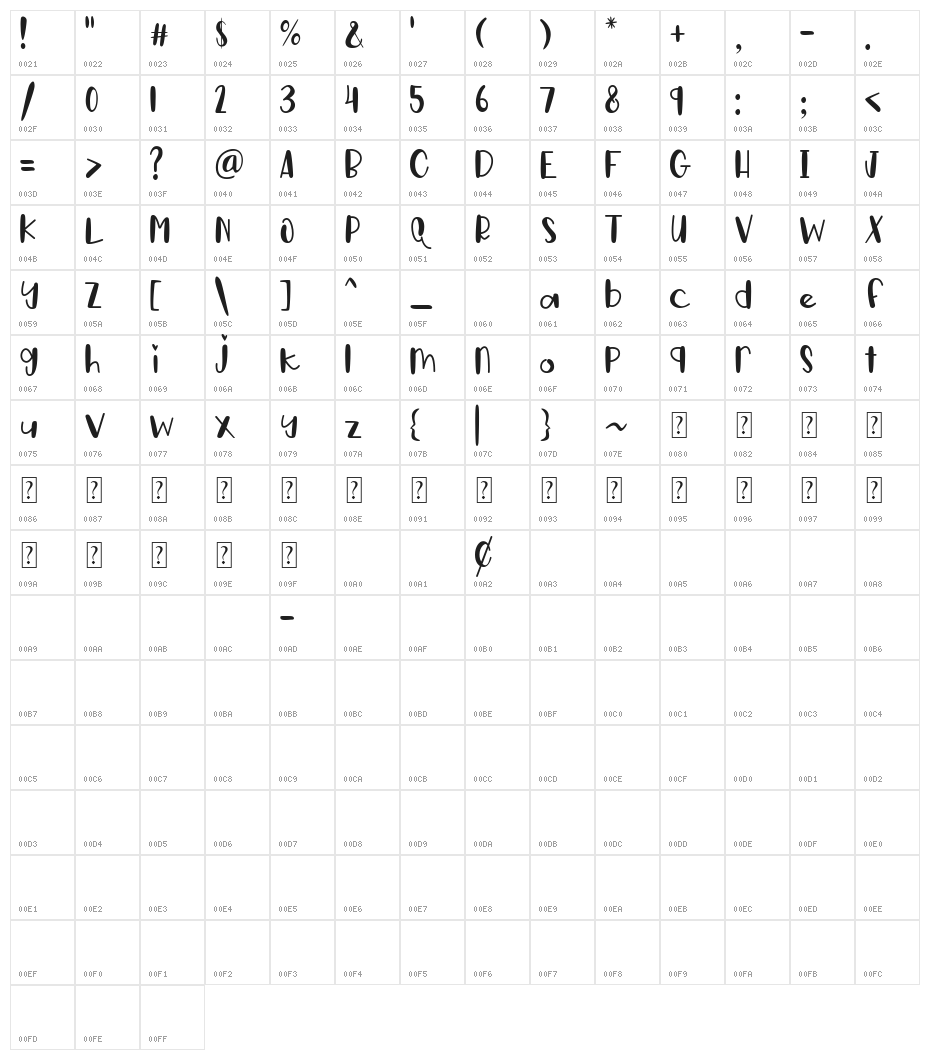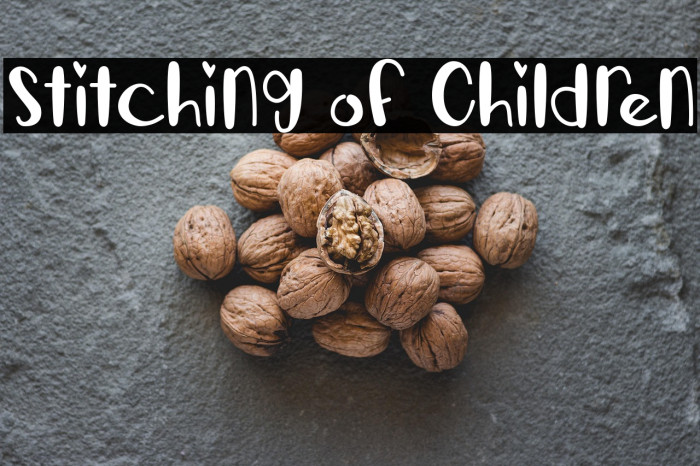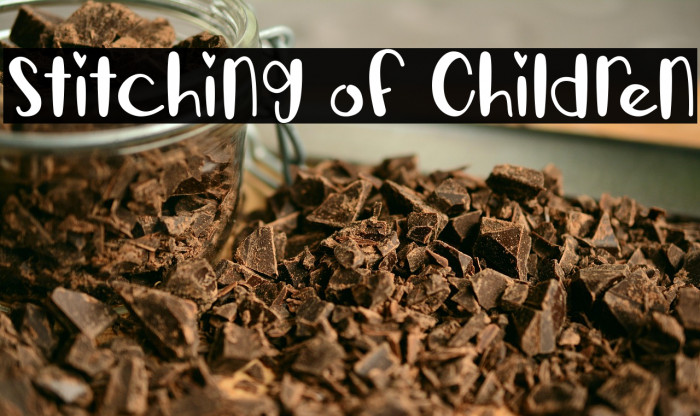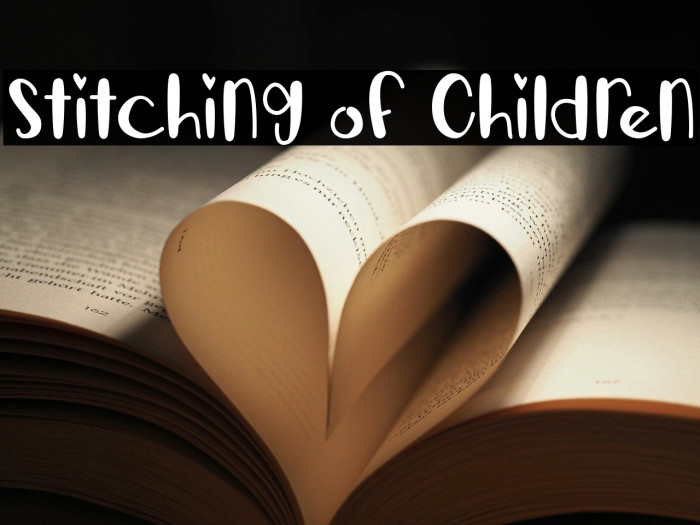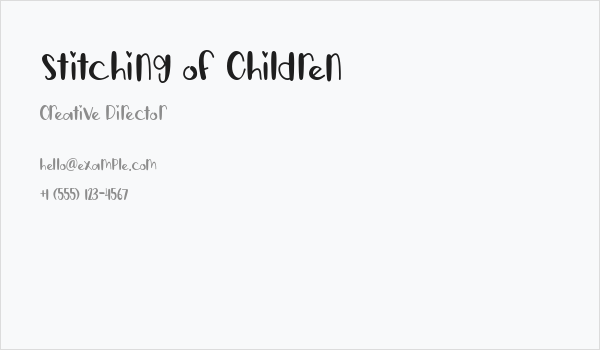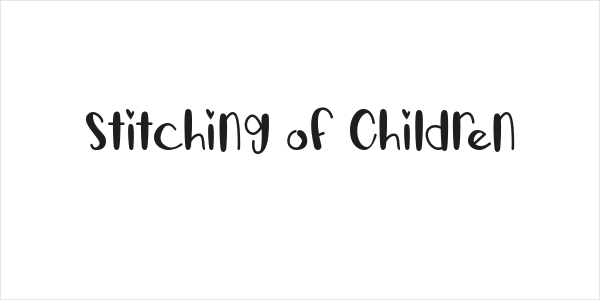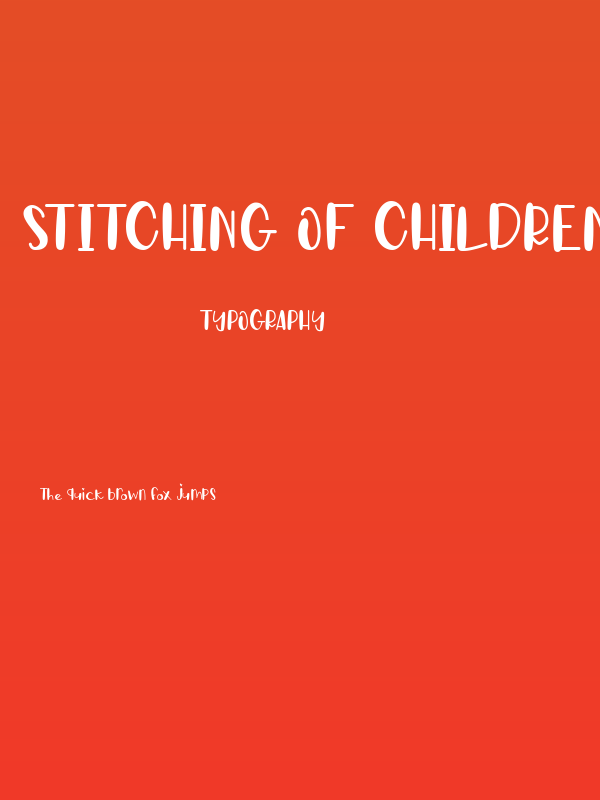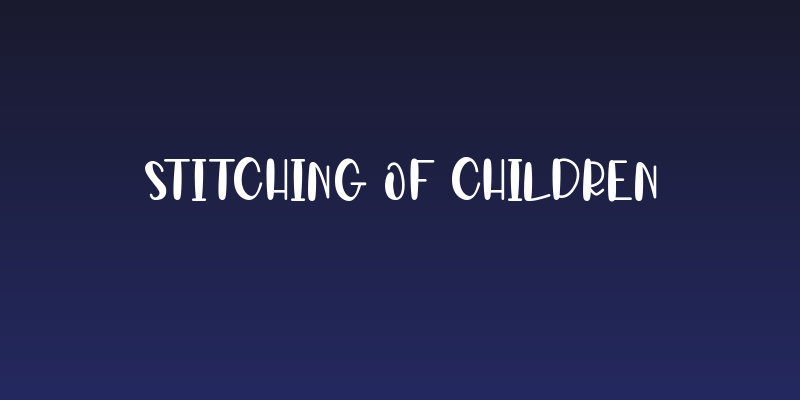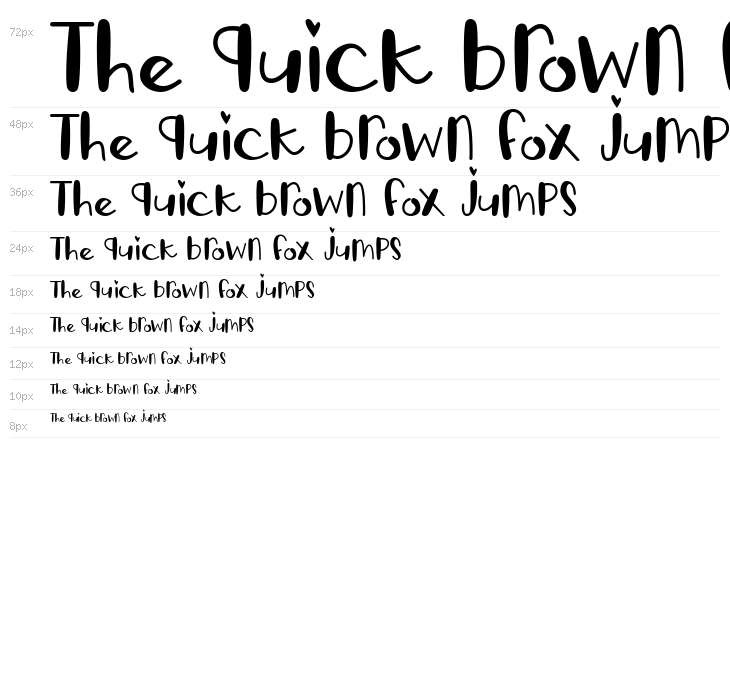
Stitching of Children Font
Stitching of Children Description
This playful and whimsical font features a hand-drawn style with a charming, childlike quality. The letters are bold and rounded, with a slightly irregular baseline that adds to its casual and friendly appearance. The uppercase and lowercase letters are distinct yet harmonious, with some characters featuring unique embellishments like hearts. The numbers and special characters maintain the same playful aesthetic, making it versatile for various creative projects. Its overall look is both approachable and fun, perfect for designs that aim to convey warmth and creativity.
| Proposed Projects | Ideal for children's book covers, playful branding, greeting cards, and educational materials. |